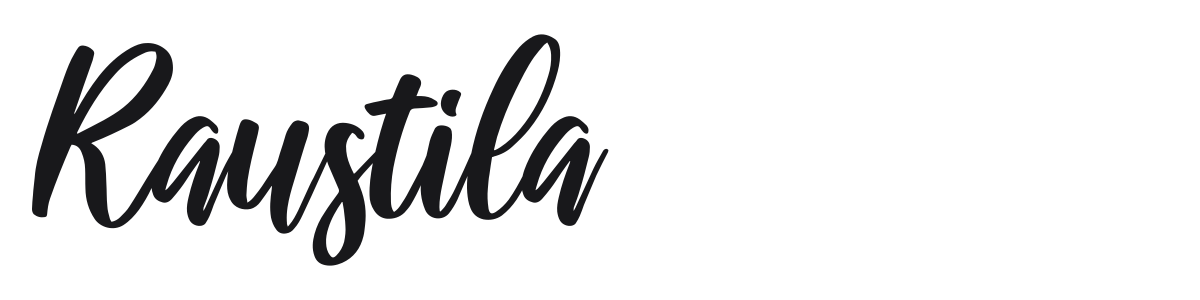
Raustila
Raustila is a bold brush typeface from Alit Design with thick, energetic strokes that feel like they were laid down fast and with confidence. The letterforms have a loose, handwritten quality but carry enough weight and structure to hold their own in headlines, logos, and poster work. There's a modern edge to its casual expressiveness that keeps it from feeling purely decorative.